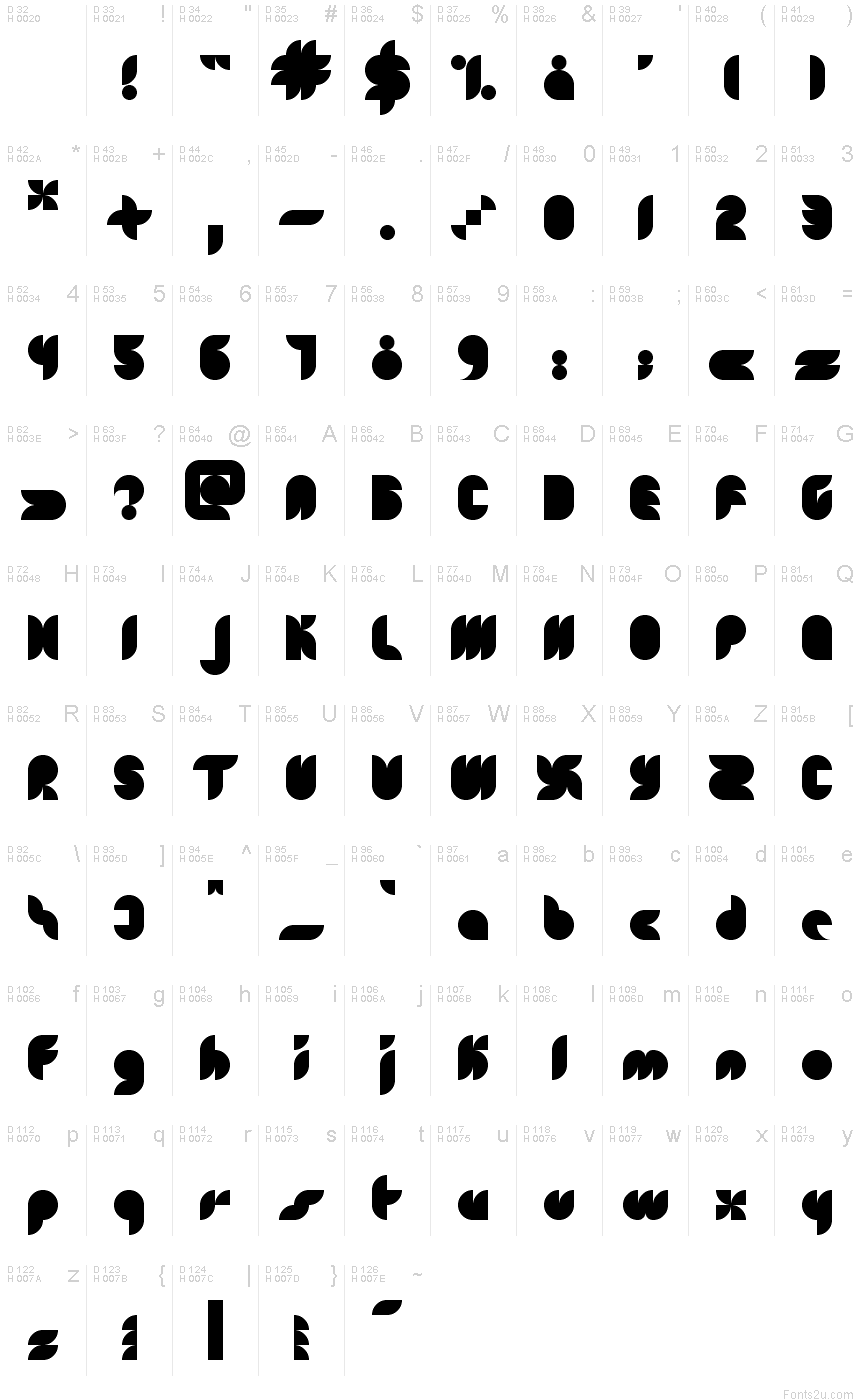
Emma, created by pablitoandorra of FontStruct, is a free groovy display font built from oversized circles and dense geometric strokes. Its letters crowd together into a rolling silhouette, with blunt joins, tight gaps, and exaggerated curves that recall experimental 1970s lettering.
A poster is its most convincing setting, especially for music nights, art events, or retro-themed exhibitions. The compact, almost pictorial forms can also turn album packaging and streetwear graphics into part of the artwork rather than ordinary type. Across these uses, the shared link is a taste for loud geometry and lettering that rewards a second look.